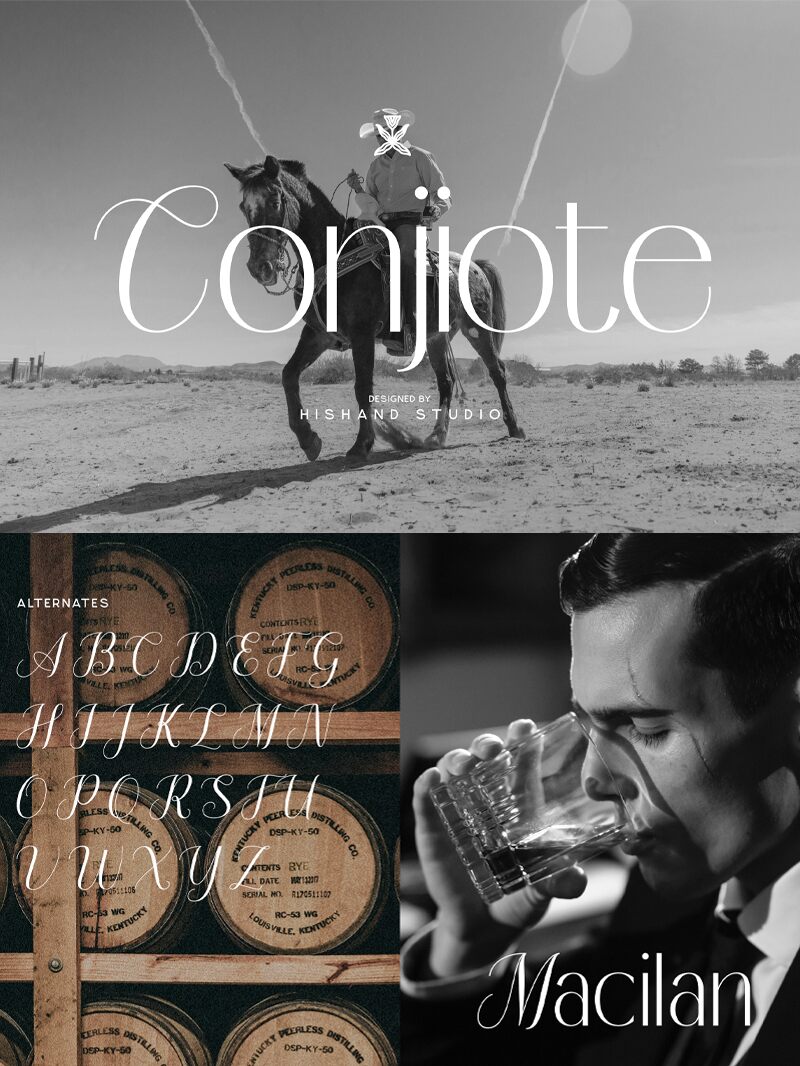
Conjiote font by Hishand Studio is a free sans serif font with ornamental details meant to impress and delight. The font’s elegance comes from the slight decorations used; lines and curves constructed with care and precision that altogether present a friendly particular context that makes the font look elegant and sophisticated. Additionally, a smooth flow between the characters and the presence of sharp edges make this font an ideal choice no matter whether paired with a simple background or images where it’d cause a strong influence on the overall design.
Conjiote reflects an energetic ambiance as it can be used in applications related to well-being and mental and physical health. It is well suited for luxury brands as well as beauty products, fashion, or other feminine concepts. Meanwhile, it would also look distinguished when used for content related to art and history, such as galleries, museums, antiques, and other similar content.